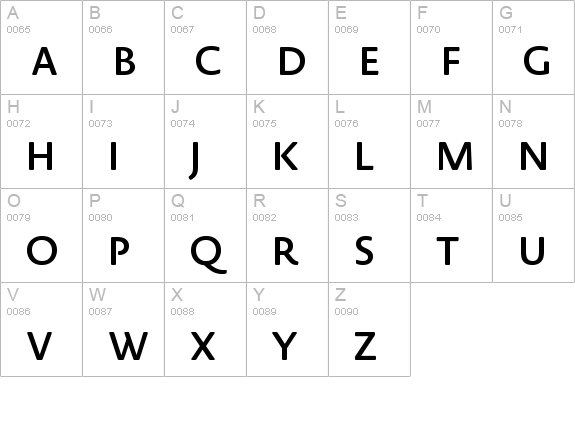
Novel Sans Rd Pro SemiBold is a sub-bold, structured variant in the Novel typeface family \xE2\x80\x94 well suited to sub-headlines and emphasised passages.
Novel Sans Rd Pro SemiBold is a sleek and modern typeface that exudes confidence and sophistication. With its bold weight and clean lines, this font is perfect for making a statement in your designs. Whether you're working on branding, editorial layouts, or any other project that requires a strong and contemporary look, Novel Sans Rd Pro SemiBold will not disappoint. And the best part? This versatile font is available for free download at FontsMarket.com. So go ahead and elevate your designs with Novel Sans Rd Pro SemiBold today!